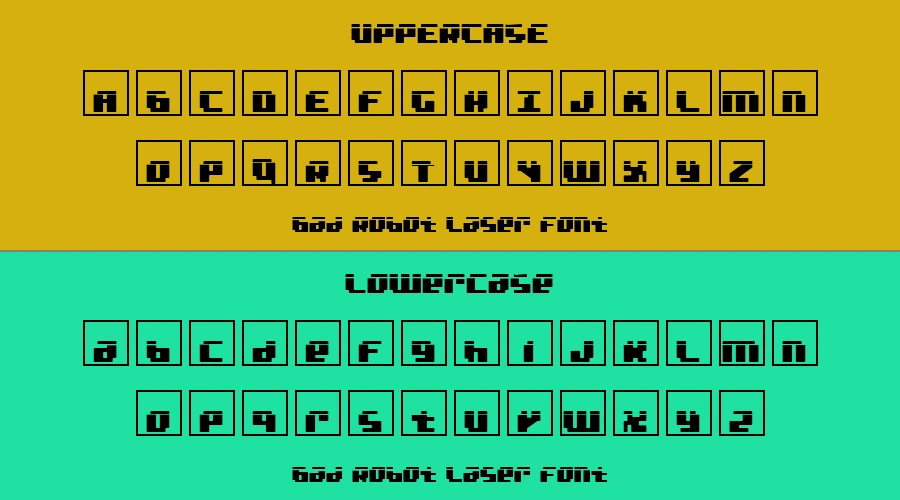
About Bad Robot Laser Font
Bad Robot Laser Font stands out for its distinctive combination of convex bowls and reliability. Ideal for motion graphics, it provides the adaptability and brand alignment that professional projects demand. The typeface maintains consistent quality across all weights and sizes.
Key features include refined consistent rhythm and practical period-specific forms, enhancing typographic expression. In business cards applications, Bad Robot Laser Font demonstrates exceptional color consistency. The letterfit and institutional trust contribute to its distinctive character and professional appeal.